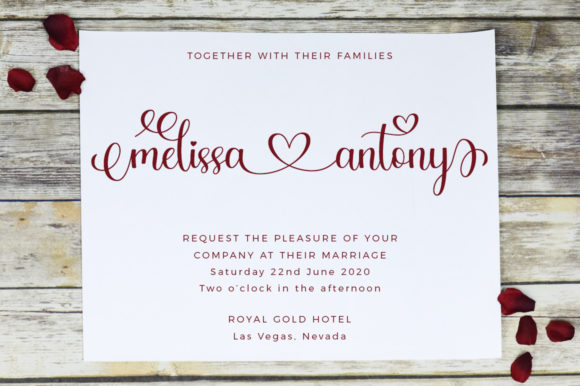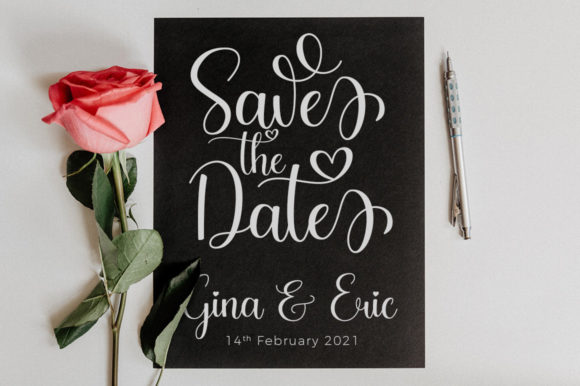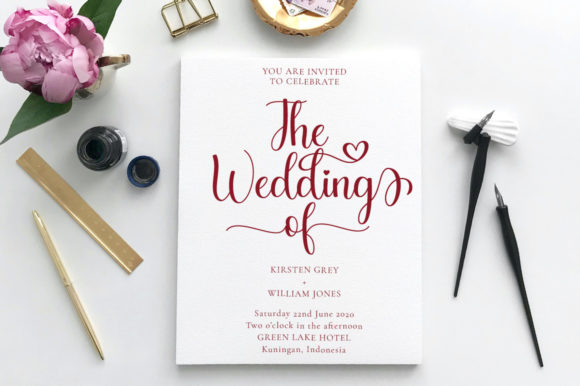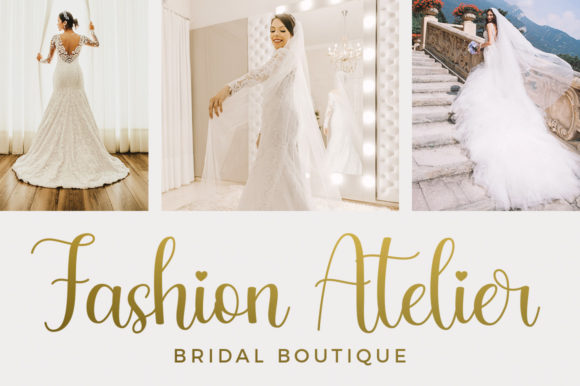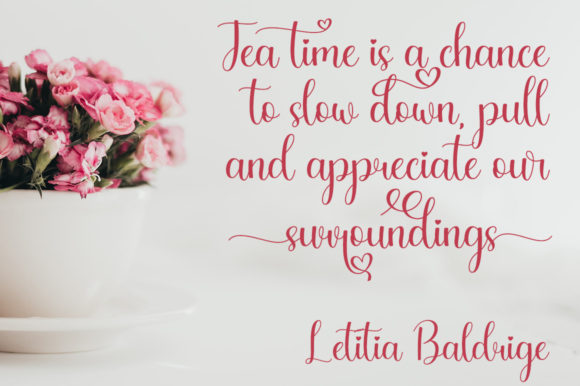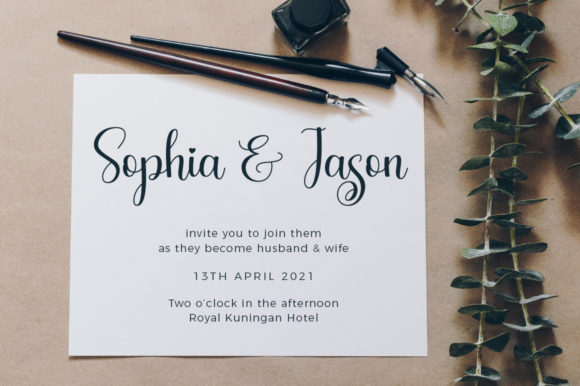
Barkelia Font: Elevate Your Designs with Elegance and Versatility
In the world of typography, few fonts manage to capture the essence of elegance and versatility as effectively as Barkelia. This delicate, handwritten font has been making waves among designers and crafters alike, and for good reason. With its distinct, well-rounded letters and incredibly adaptable style, Barkelia is a masterpiece waiting to be explored. In this article, we’ll dive into what makes Barkelia a must-have in your font collection and how you can leverage its unique features to create spectacular designs.
The Charm of Barkelia
Barkelia’s charm lies in its delicate and elegant appearance. Each letter is crafted with precision, boasting smooth curves and a fluidity that gives the font its unique character. The well-rounded letters not only make the font aesthetically pleasing but also enhance readability, making it suitable for a wide range of applications, from elegant branding and signage to beautiful stationery and decorative crafts.
One of the standout features of Barkelia is its versatility. This font can effortlessly adapt to various design contexts, allowing you to create stunning visual content. Whether you’re working on a sophisticated business card, a whimsical wedding invitation, or a captivating blog post, Barkelia brings an element of elegance and sophistication that elevates your designs. Its adaptability also makes it an excellent choice for digital and print media, ensuring your creations look great across different platforms.
Barkelia takes versatility to the next level with its PUA (Private Use Area) encoding. This feature means that accessing all the glyphs and swashes is incredibly straightforward. PUA encoding allows designers to access a wide range of additional characters and decorative elements that aren’t available in standard fonts. With Barkelia, you can easily incorporate these glyphs and swashes into your designs, adding a personal touch and making your work stand out. This encoding makes the font incredibly user-friendly, saving you time and effort in the design process.
Why Designers and Crafters Love Barkelia
Designers and crafters are drawn to Barkelia for several reasons:
- Elegant Aesthetic: The font’s elegant and delicate appearance makes it perfect for projects requiring a touch of sophistication.
- High Readability: The well-crafted letters ensure that text remains readable, even at smaller sizes.
- Flexibility: Barkelia’s versatility means it can be used across a variety of projects, from digital to print.
- User-Friendly: The PUA encoding allows for easy access to glyphs and swashes, making design work more efficient.
Tips for Using Barkelia in Your Designs
To make the most of Barkelia, consider the following tips:
- Pair with Complementary Fonts: Combine Barkelia with simpler fonts for contrast and visual interest.
- Experiment with Sizes: Play with different sizes to emphasize certain parts of your text.
- Utilize Glyphs and Swashes: Take advantage of the PUA encoding to add unique touches to your designs.
- Consider Color: Choose colors that complement the elegance of Barkelia, such as soft pastels or rich jewel tones.
Barkelia is more than just a font; it’s a design tool that can elevate your projects to new heights of elegance and sophistication. Its delicate appearance, versatility, and user-friendly features make it an indispensable asset for designers and crafters. Whether you’re creating professional branding materials, personal stationery, or digital content, Barkelia offers the flexibility and charm to make your designs truly spectacular. With Barkelia, you’re not just choosing a font; you’re embracing a world of creative possibilities.